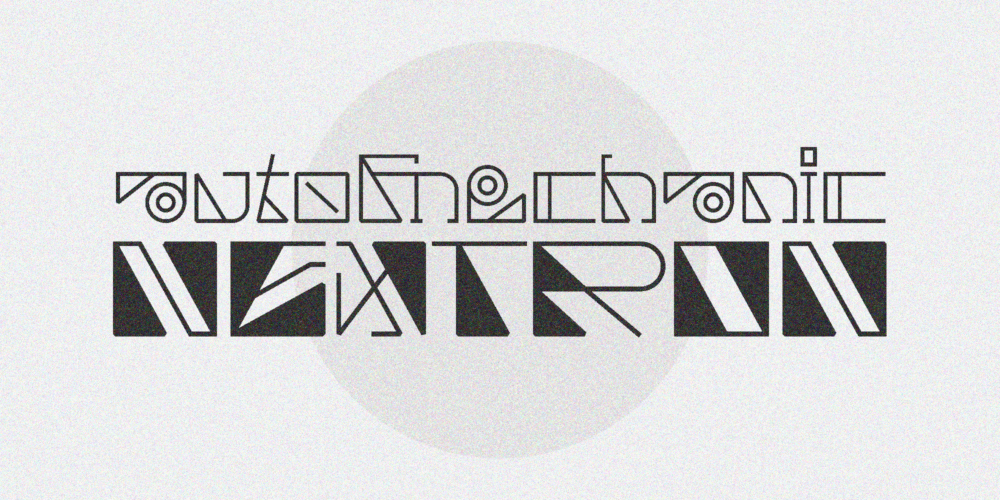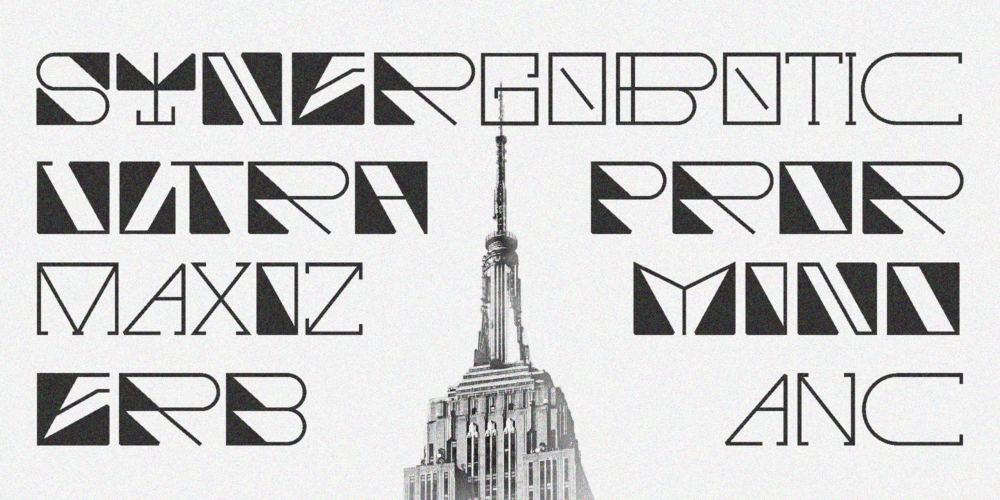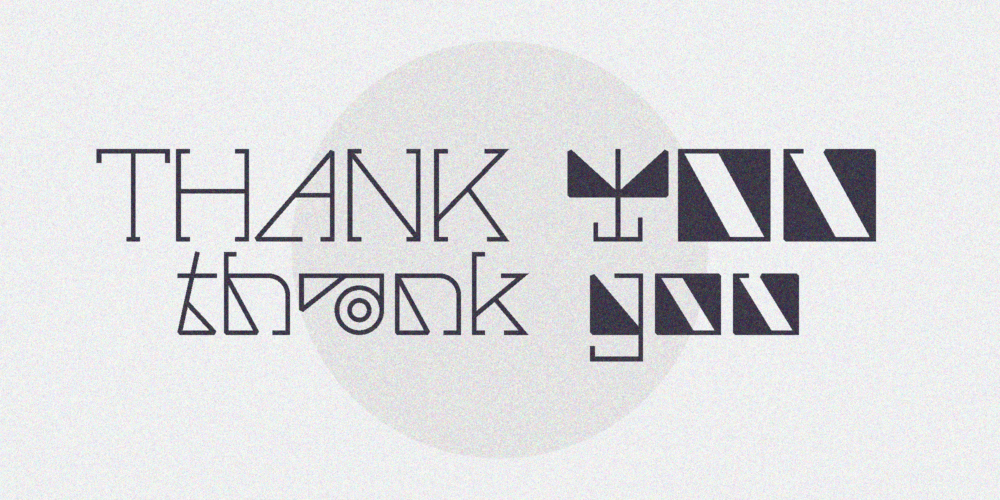
Cyber Megico
Cyber Megico Outline
CYBER MEGICO – Futuristic Robotic Font
Step into the future with CYBER MEGICO, a bold, modern, and robotic-themed typeface built for cutting-edge design. With its sleek and futuristic aesthetic, this font is perfect for tech-driven projects that demand innovation and visual impact.
CYBER MEGICO comes in two styles — Regular and Outline — allowing you to mix and match for a more dynamic, layered, and eye-catching look. Enhanced with ligatures and alternate characters, it offers excellent flexibility for logos, sci-fi posters, gaming titles, digital branding, and more.
Supporting multilingual characters, CYBER MEGICO ensures your message reaches audiences across the globe with style and precision.
Make CYBER MEGICO your go-to choice for futuristic, high-tech, and innovative designs.
Cyber Megico – Futuristic Robotic Font
Step into the future with CYBER MEGICO, a bold, modern, and robotic-themed typeface built for cutting-edge design.